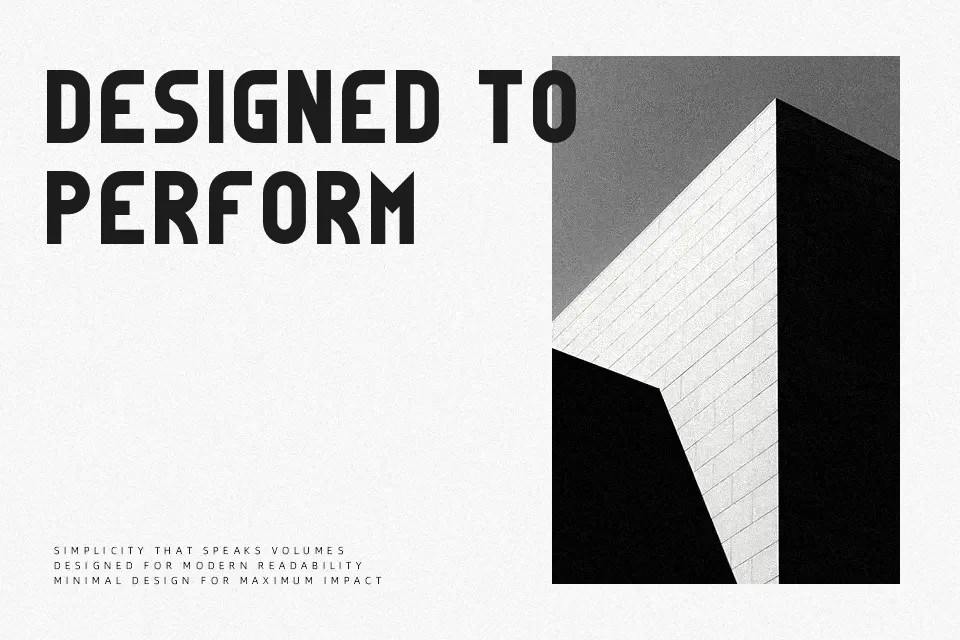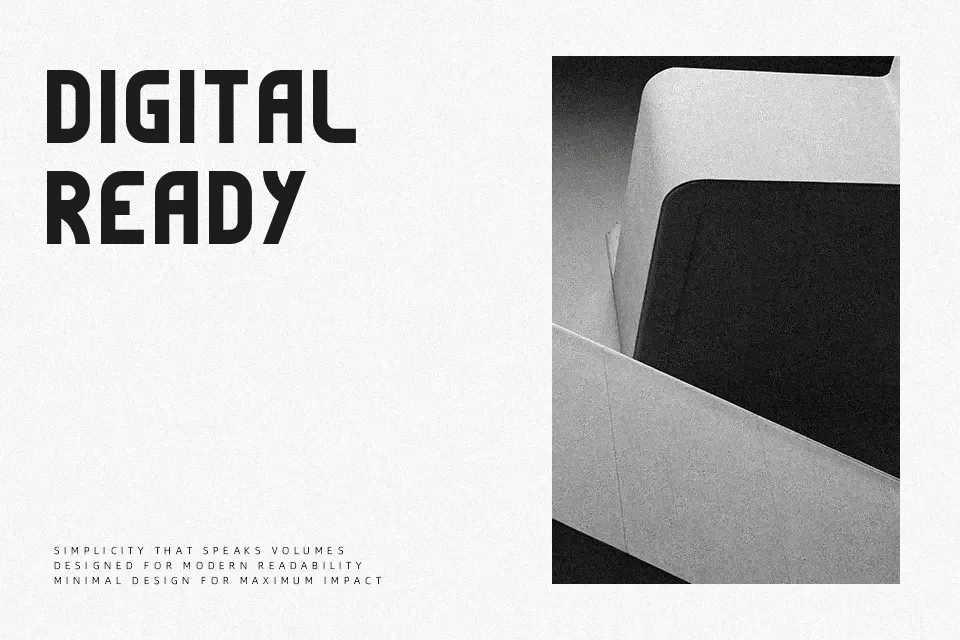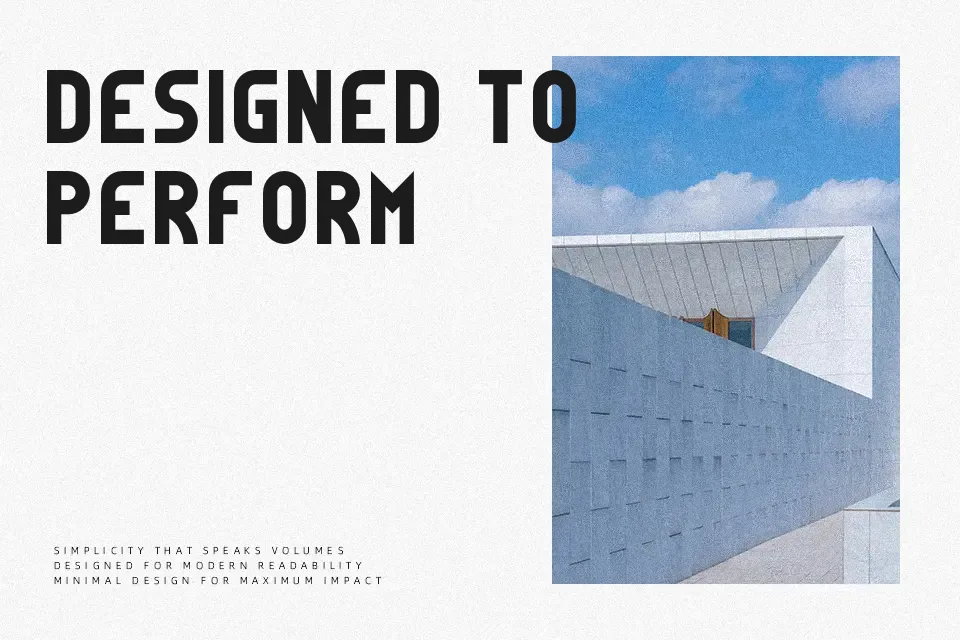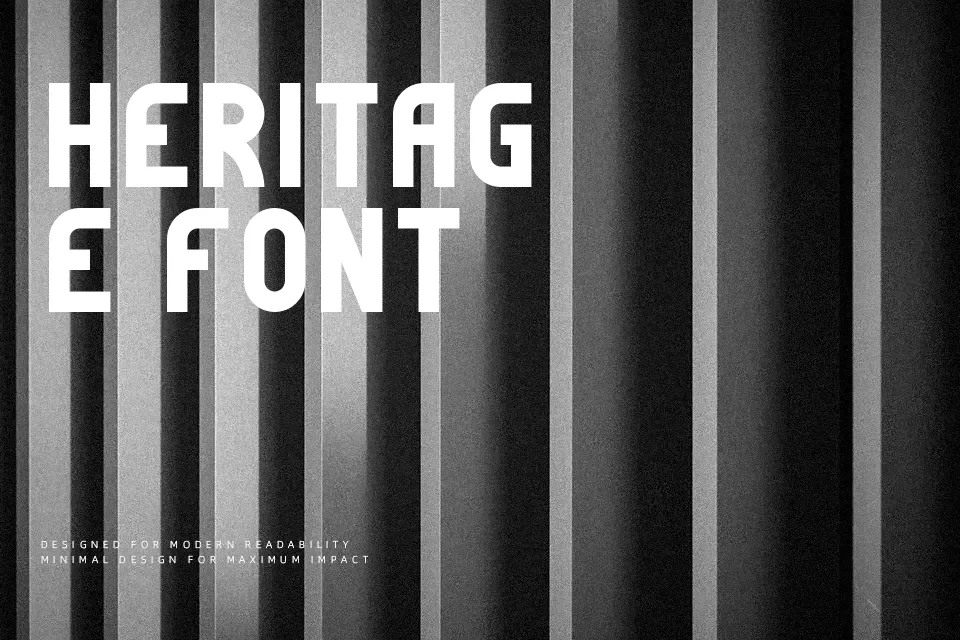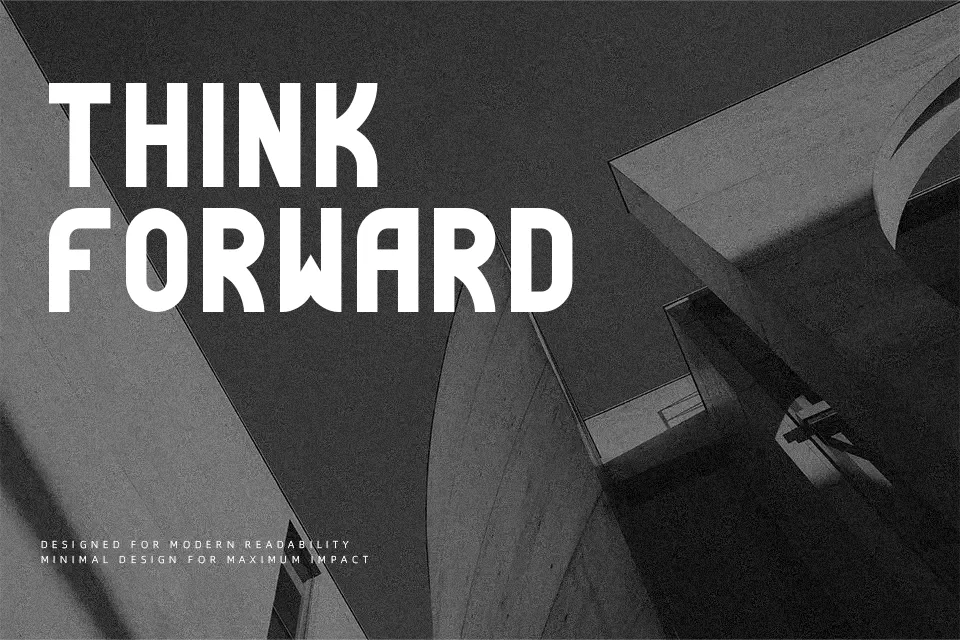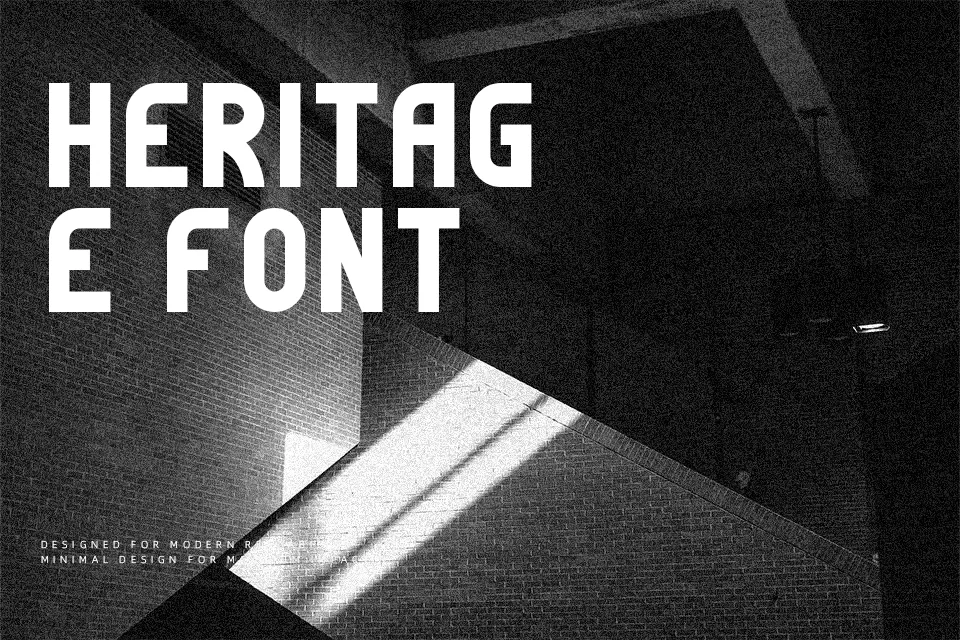
Simpleness Font
Designed by Valentin François
Simpleness Font commands attention through uniform stroke weights, strict circular curves, and unyielding geometric proportions across its uppercase character set. The typeface balances consistent terminal cuts with expansive interior spacing, creating an uncluttered rhythm that stands out in large-scale applications. In practical design environments, the letterforms excel across exhibition posters, striking title cards, and contemporary brand identities where structural clarity is essential. However, the rigid geometry and absence of lowercase glyphs make it poorly suited for dense paragraphs or continuous reading layouts. Overall, the design functions as a dependable display tool when deployed with generous tracking.
Best For: exhibition posters, architectural identity titles, magazine headline covers, product packaging headers
Not Ideal For: long body text, multi-page editorial layouts, dense mobile user interfaces, small footnote captions
Perfect for advertising, headline, and logo, with a clean and display style.